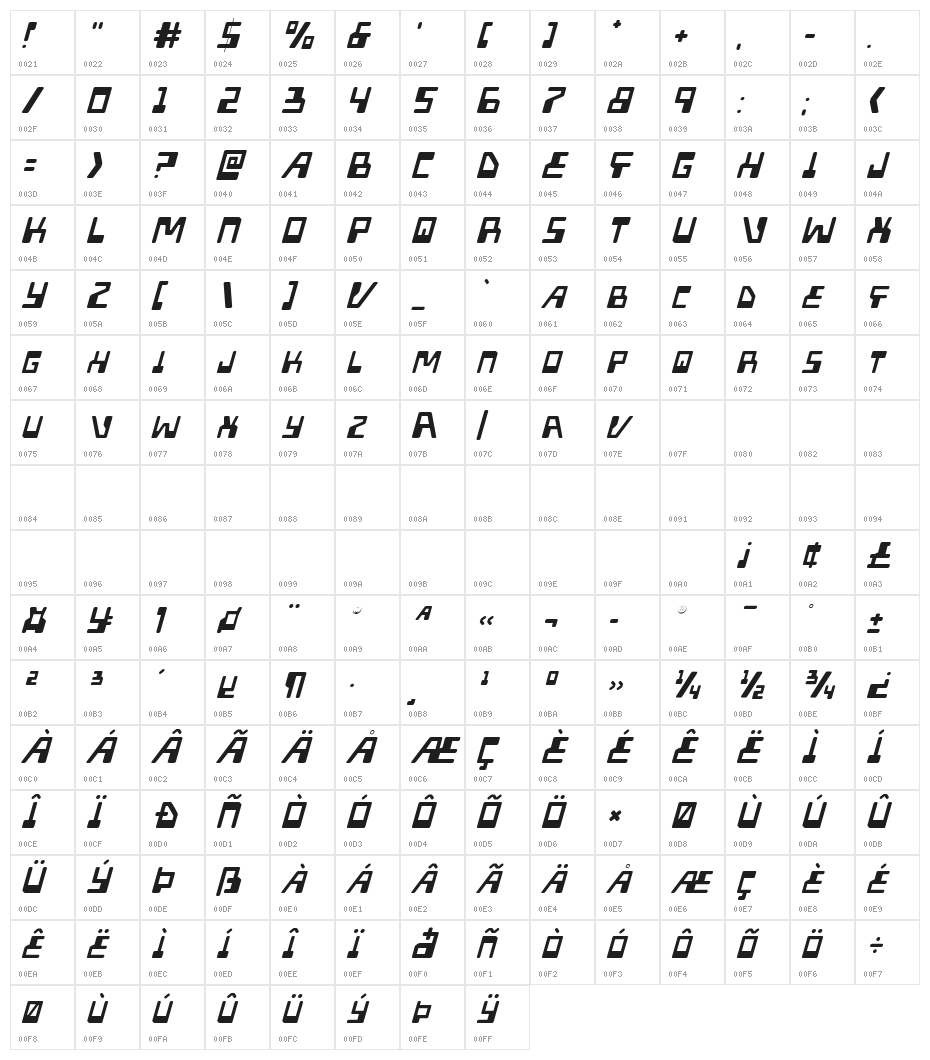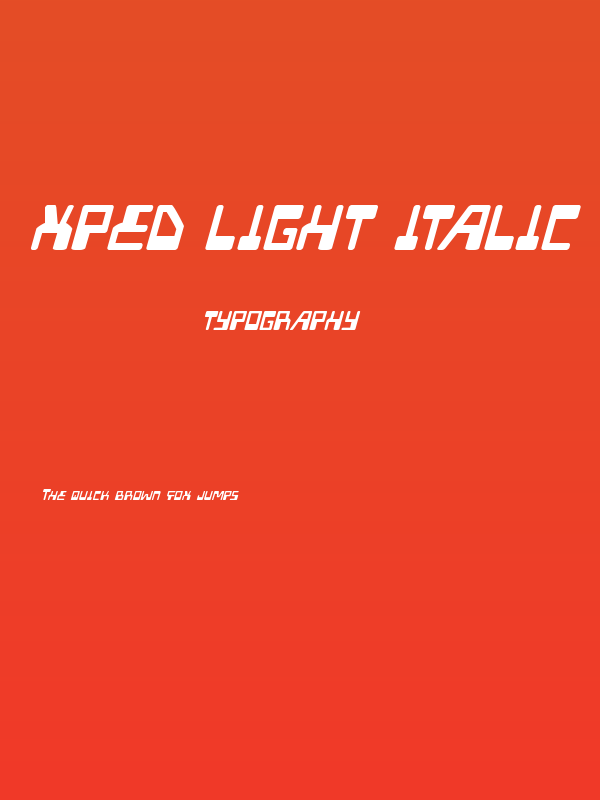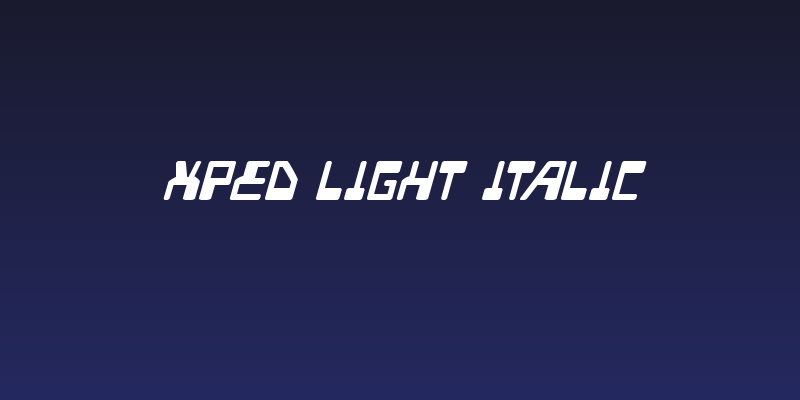
Xped Light Italic Font
Xped Light Italic Description
This font features a dynamic and futuristic design with a strong emphasis on angular shapes and geometric forms. The characters are slightly italicized, giving a sense of motion and speed. The strokes are consistent in weight, providing a uniform appearance across all characters. The font includes both uppercase and lowercase letters, numerals, and a variety of special characters. Its bold and modern aesthetic makes it suitable for projects that require a contemporary and edgy look.
| Use Case | Logos, Headlines |
| Proposed Projects | Ideal for technology branding, sports team logos, video game titles, and sci-fi movie posters. |